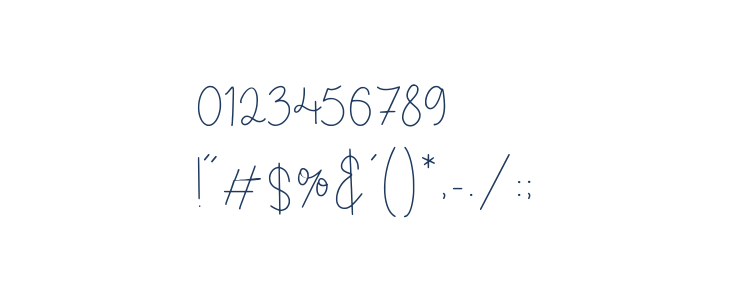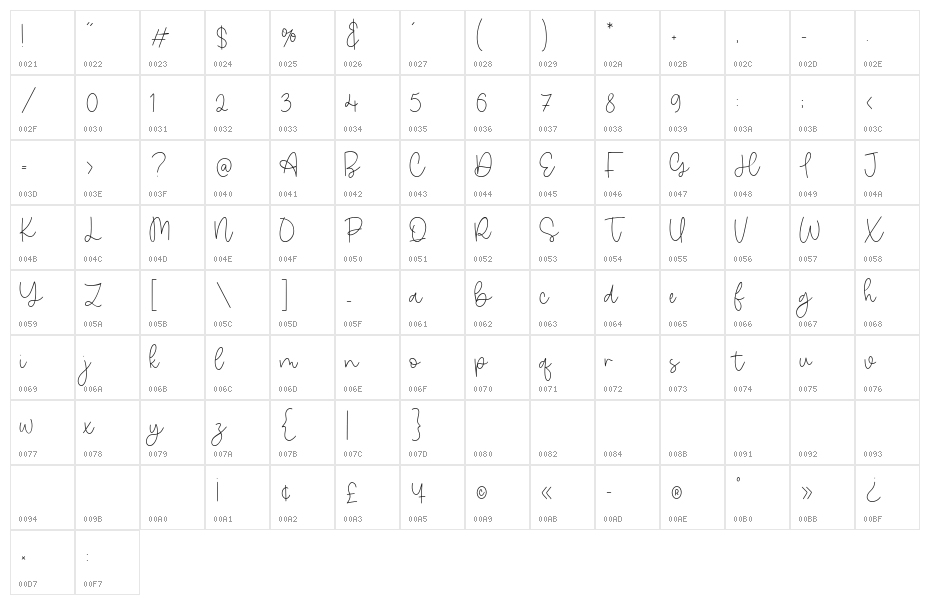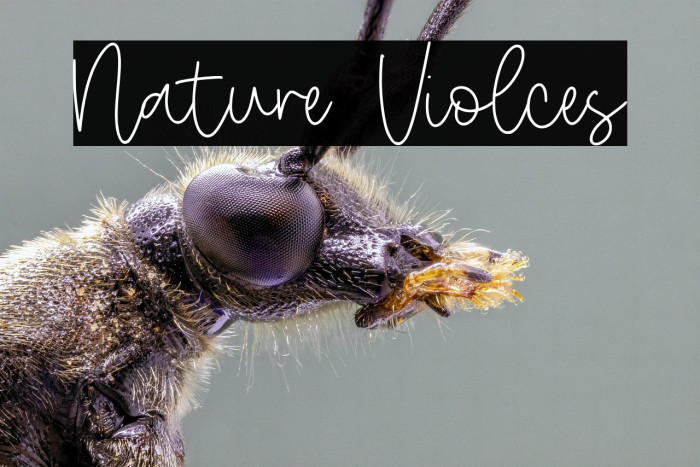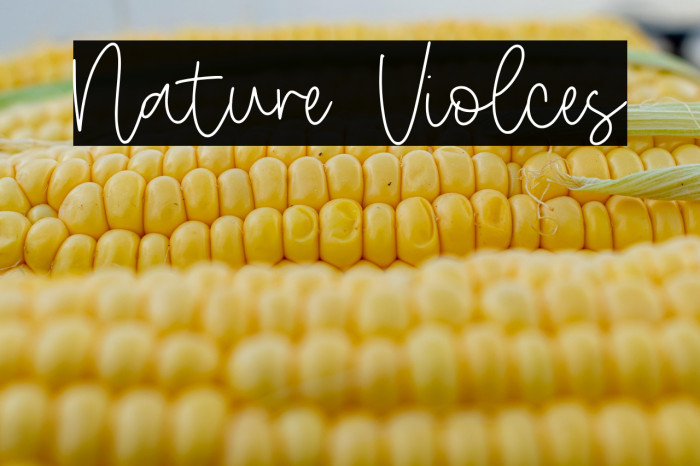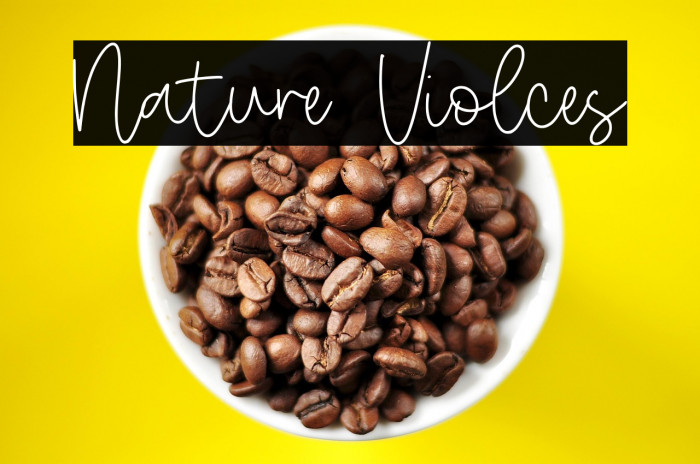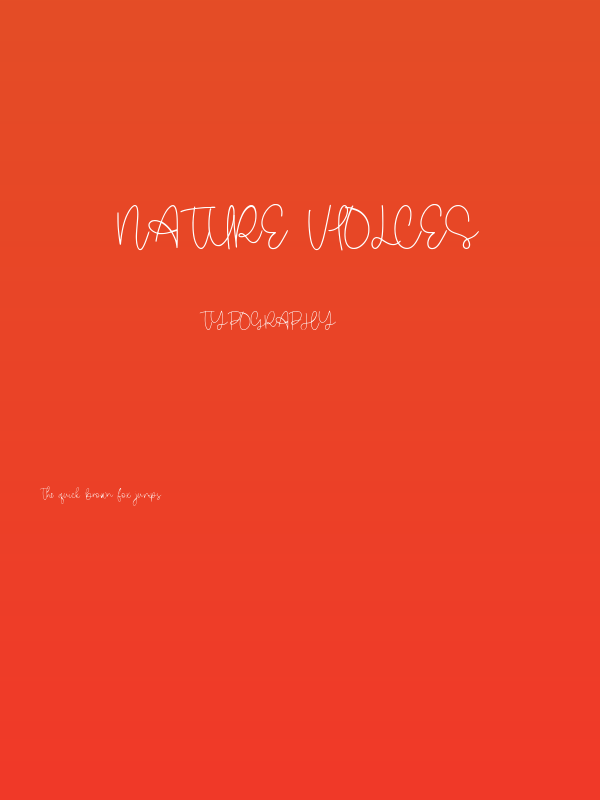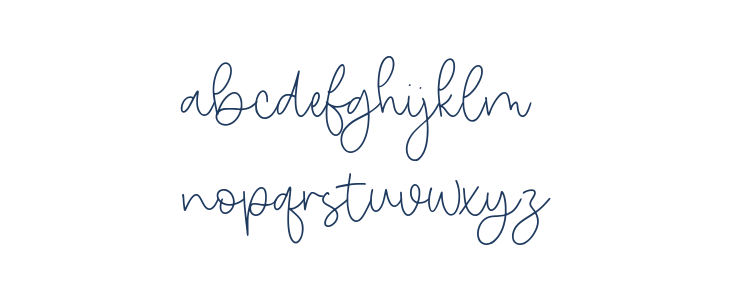
Nature Violces Font
Nature Violces Description
This font features a playful and elegant handwritten style, characterized by its flowing and interconnected letterforms. The uppercase letters are bold and slightly whimsical, with a consistent stroke width that maintains readability. The lowercase letters are more fluid, with loops and curves that add a touch of sophistication. Numbers and special characters follow the same aesthetic, ensuring a cohesive look across all text. The overall appearance is both casual and refined, making it suitable for a variety of creative projects.
| Use Case | Logos, Invitations, Social Media |
| Proposed Projects | Ideal for wedding invitations, greeting cards, branding, and social media graphics. |